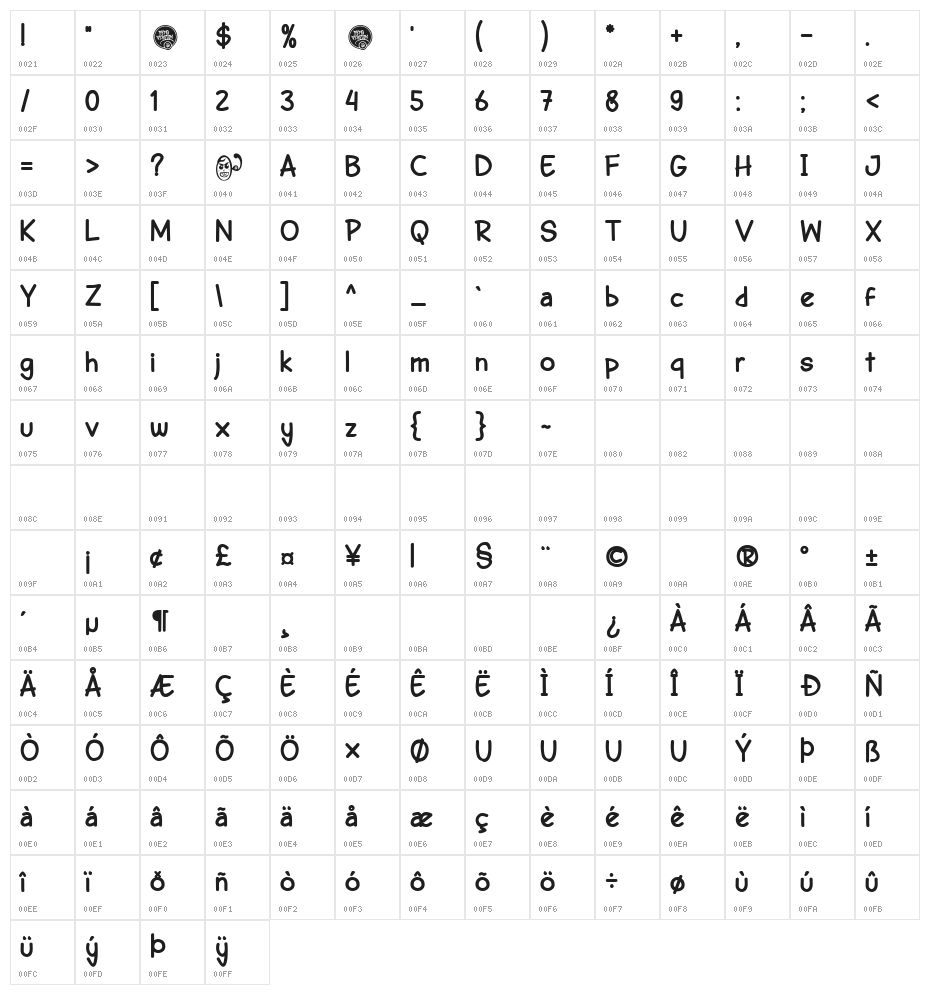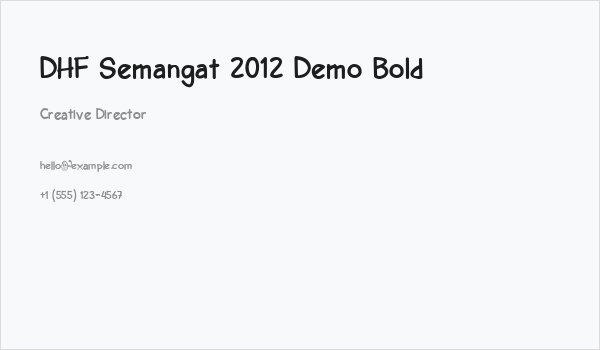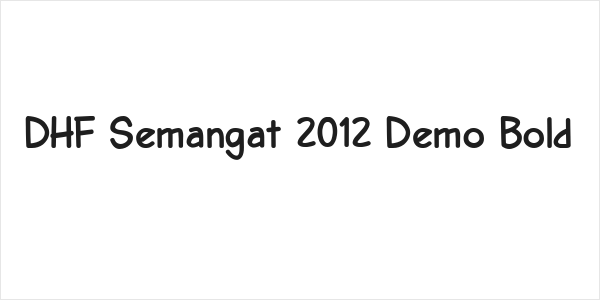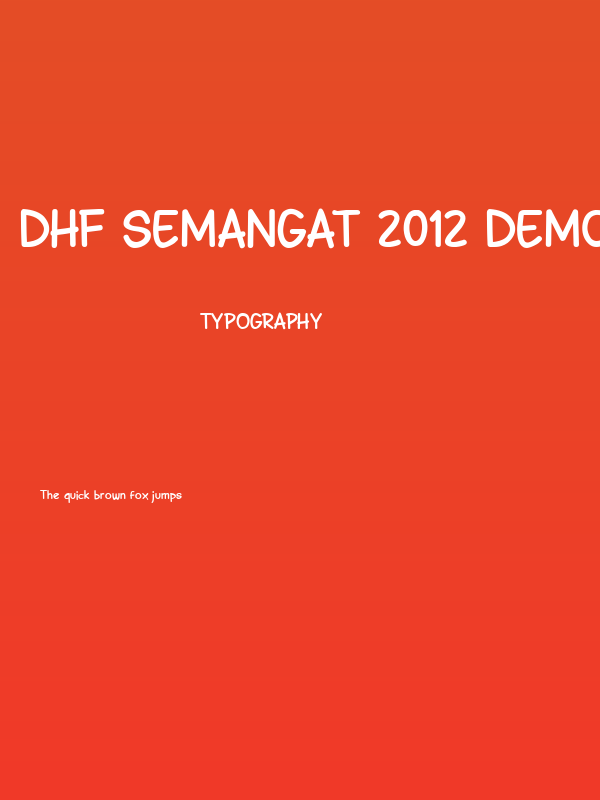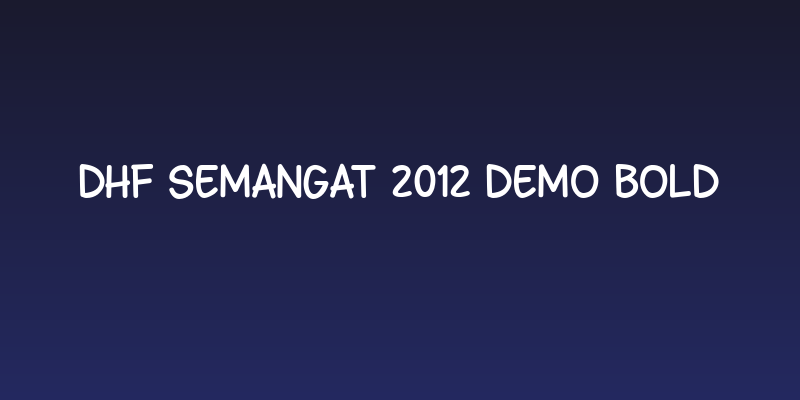
DHF Semangat 2012 Demo Bold Font
DHF Semangat 2012 Demo Bold Description
This font features a playful and bold style with rounded edges and a casual appearance. The uppercase and lowercase letters maintain a consistent thickness, contributing to a cohesive look. The numerals and special characters are designed to match the overall style, ensuring uniformity across all elements. The font's boldness makes it stand out, while its rounded forms give it a friendly and approachable feel. This combination of attributes makes it suitable for projects that require a touch of fun and informality.
| Proposed Projects | Ideal for children's books, playful branding, posters, and informal invitations. |